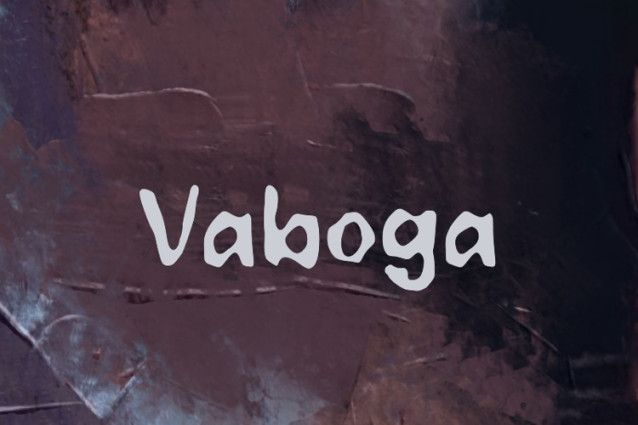
Vaboga Font
Vaboga Font, perfectly fit for branding, logo, wedding things, greeting cards, fashion, lookbook, marketing promotion, anytime you want to look fancy elegant but still casual.